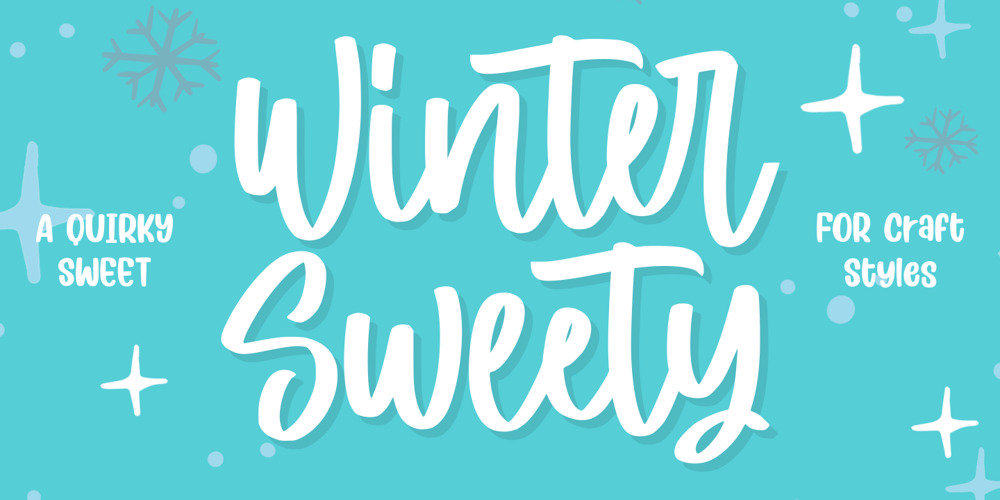
Winter Sweety Font Family was designed by Good Java and published by Good Java Studio. Winter Sweety contains 1 styles and family package options. Introducing Winter Sweety a playfully display font make from handdrawn ideas in typeface. This font includes full of Alphabetical glyphs, Numerals, and punctuation. This is so perfect for invitations, monograms, wedding, fashion, branding, label, handdrawn or logotype.